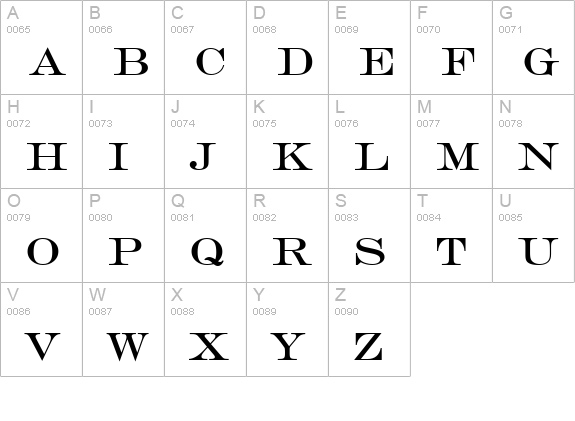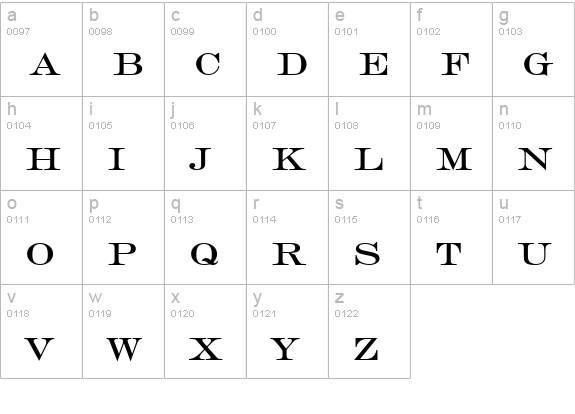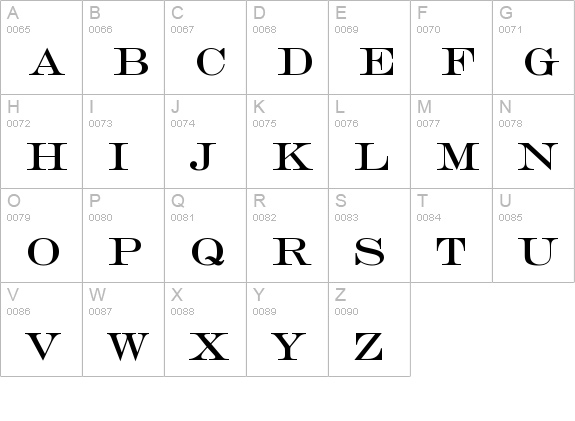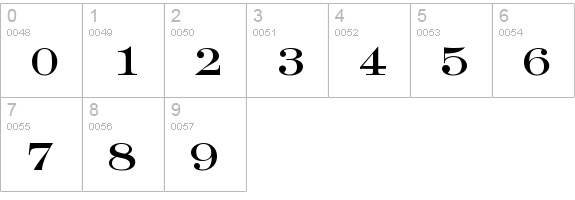
EngraversD font is a sophisticated and elegant typeface that exudes a timeless charm. Its classic design features sharp, clean lines and intricate details that make it perfect for adding a touch of refinement to any project. Whether you're creating invitations, signage, or branding materials, EngraversD font will elevate your design with its distinctive style. What's even better is that EngraversD font is available for free download at FontsMarket.com. This means you can access this high-quality font without any cost, making it a valuable addition to your font collection. Don't miss out on the opportunity to enhance your designs with the beauty and versatility of EngraversD font. Download it today and start creating stunning typography that stands out from the rest.